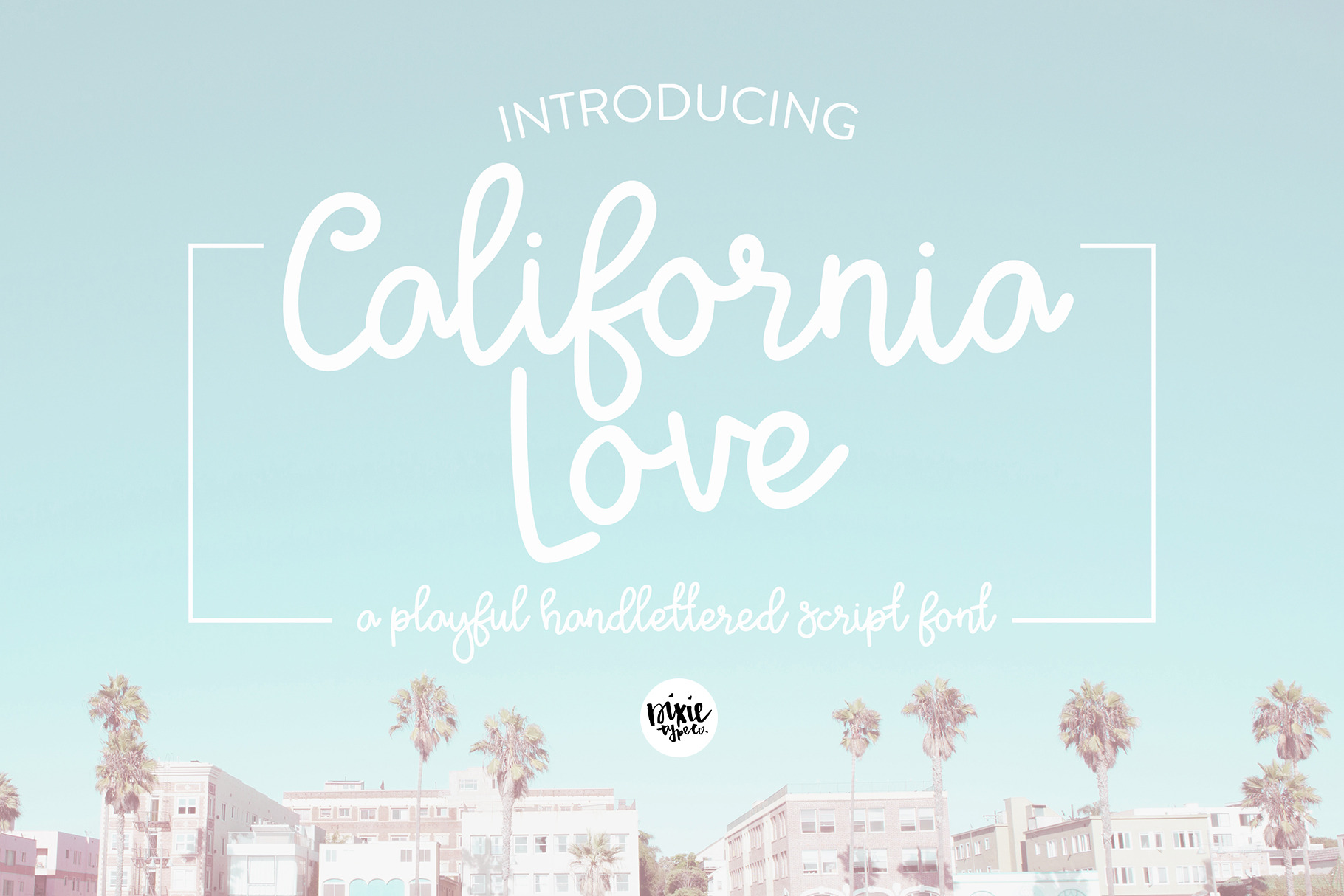
"California Love" is a playful hand lettered script font.
{ Typographic script font hand lettered with love by Dixie Type Co. }
This hand lettered brush font includes all upper and lowercase letters, and 38 additional punctuation glyphs.